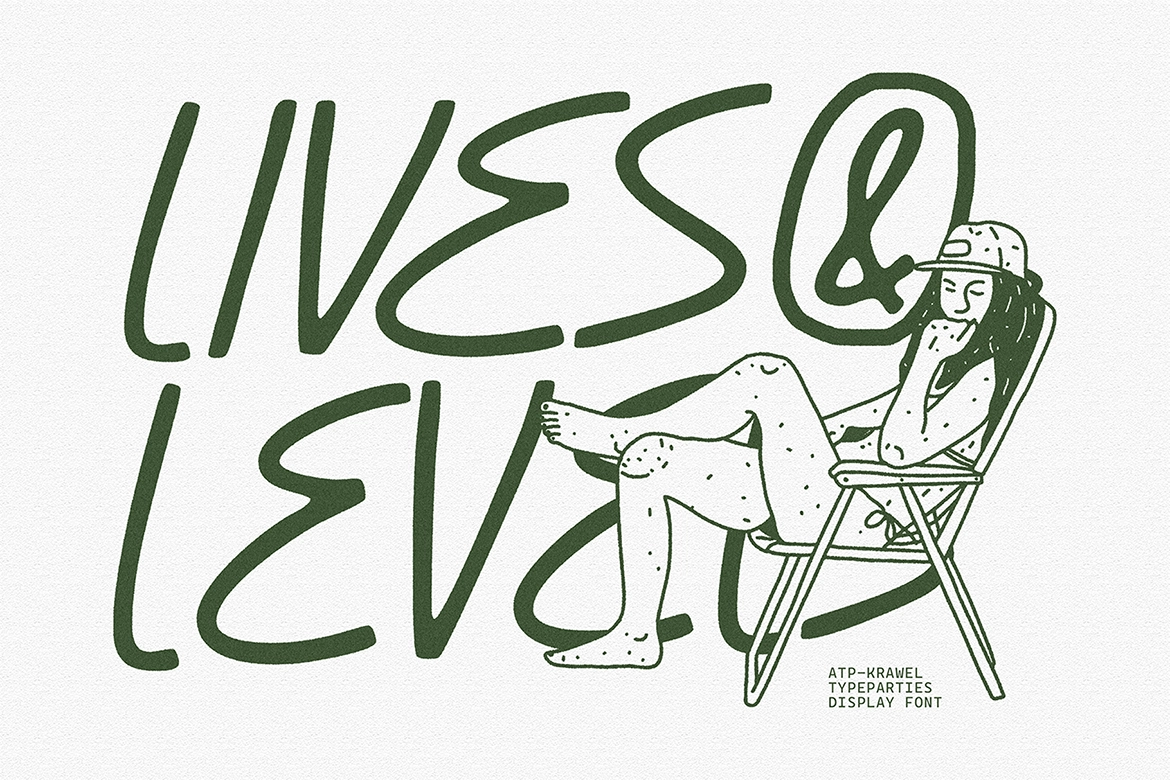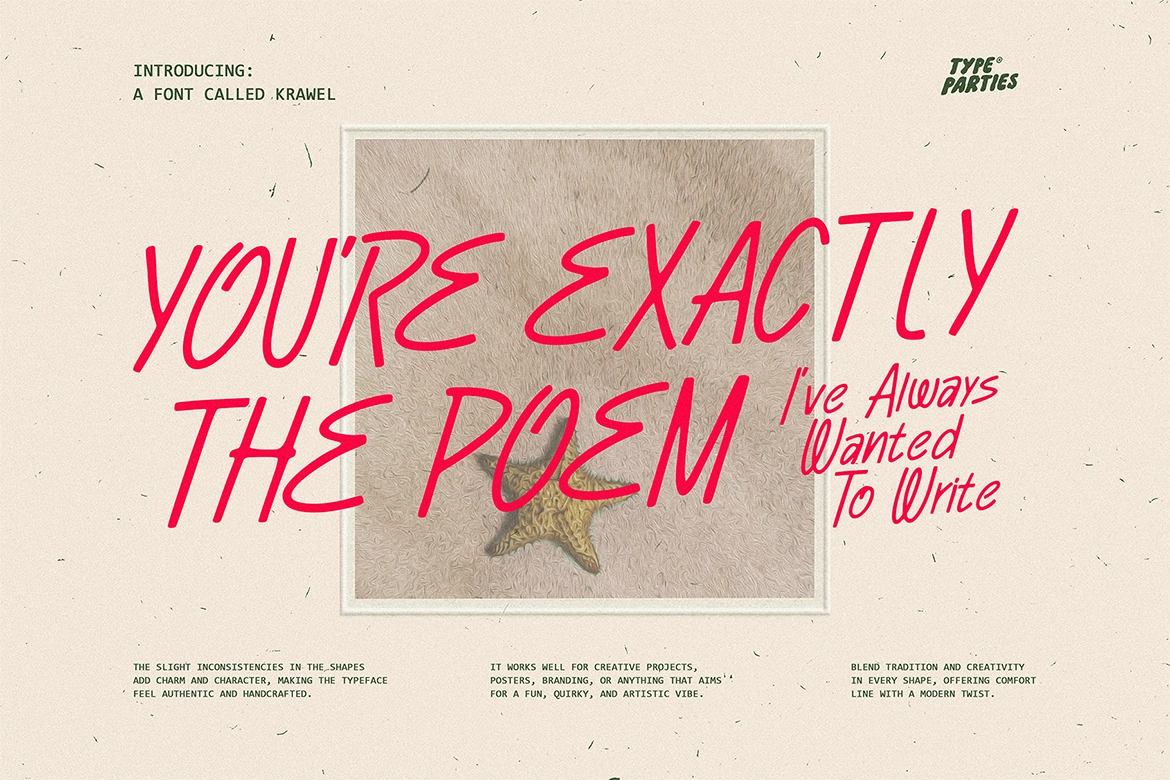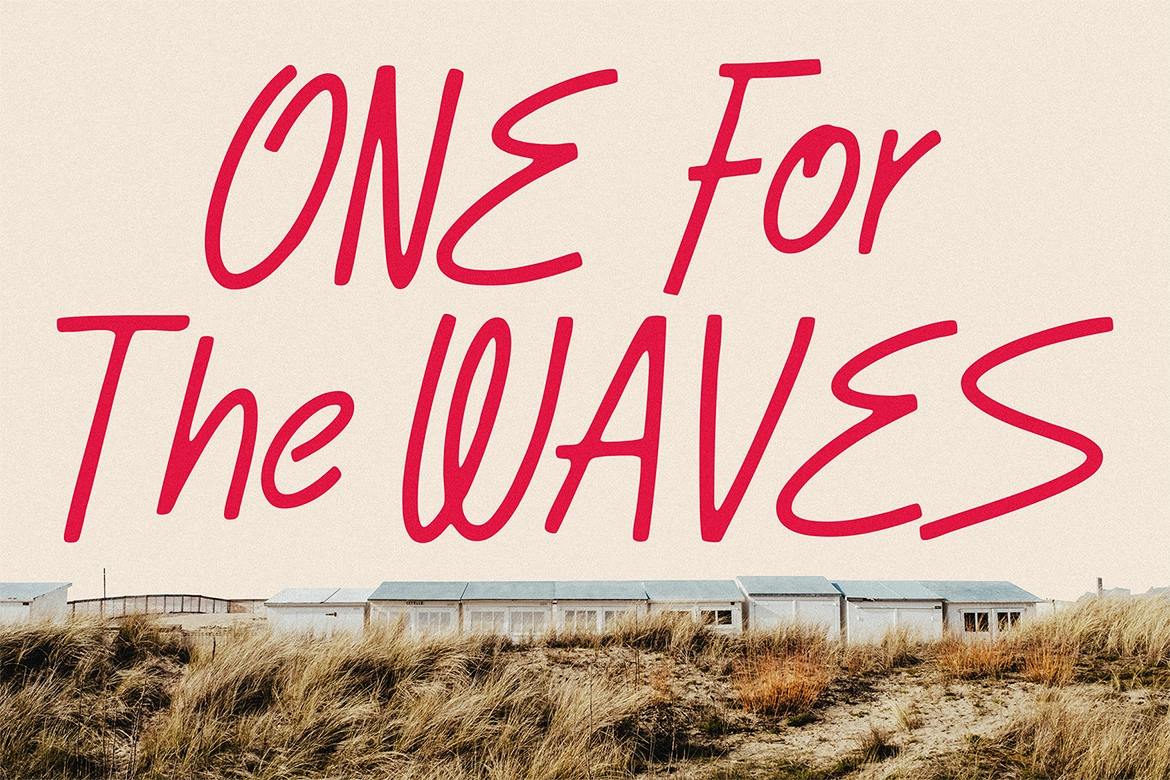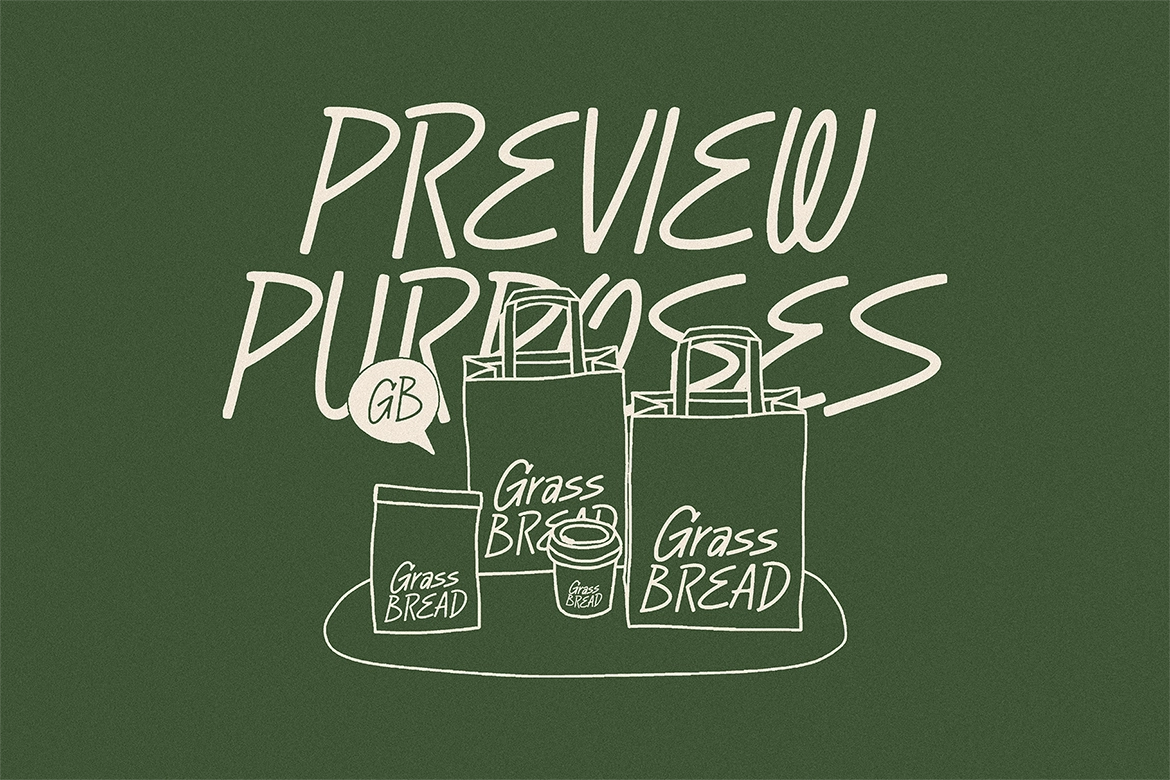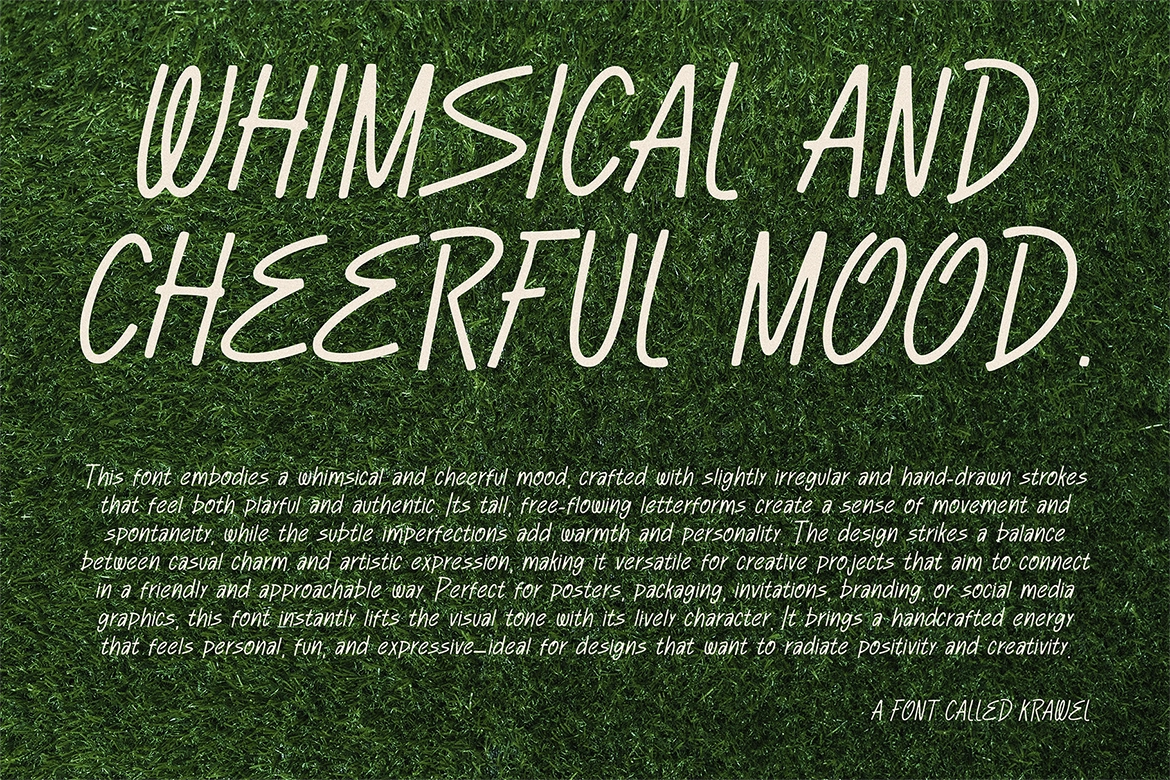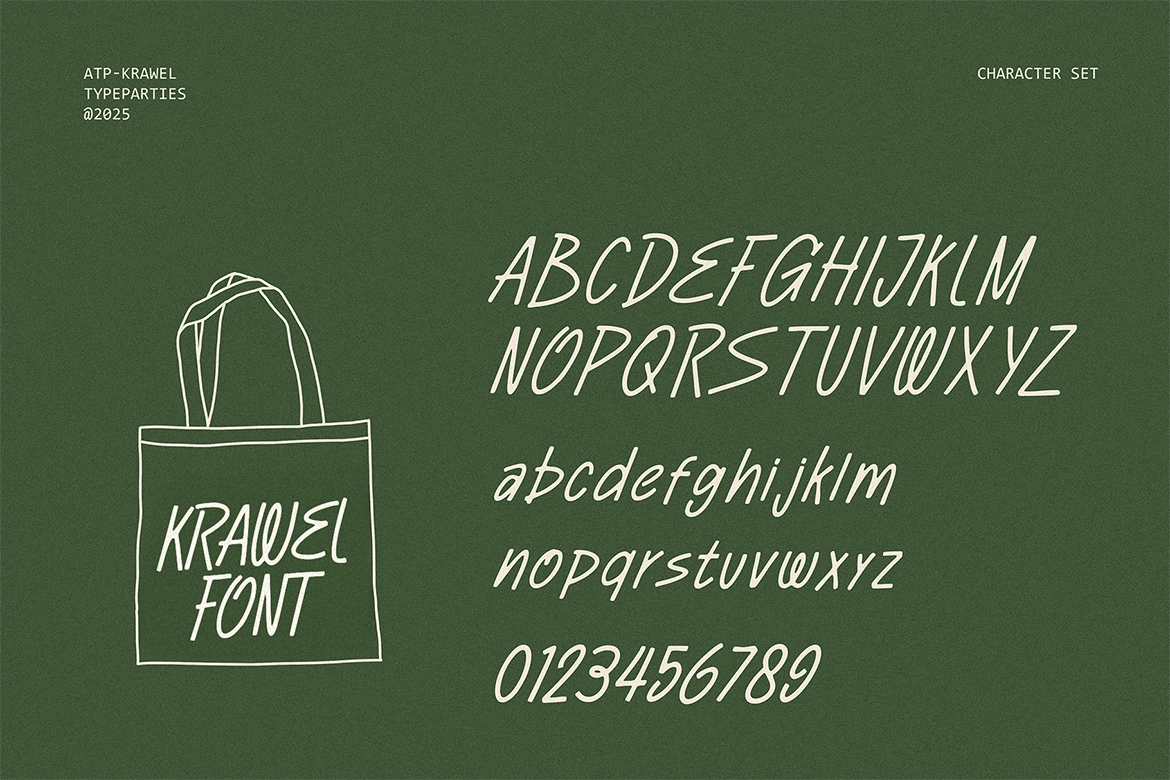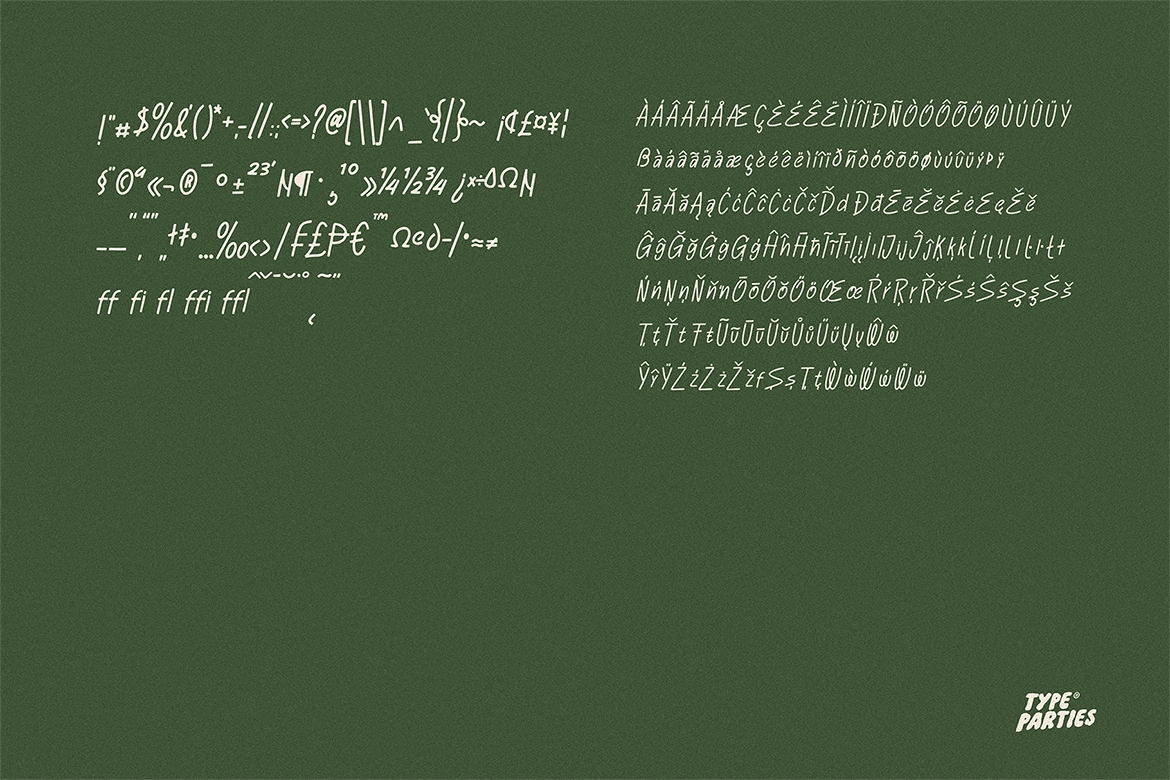
Krawel - Casual Handwritten Font
Krawel – Casual Handwritten Font is a playful and expressive typeface designed with a natural, hand-drawn feel. Featuring tall, narrow letterforms and slightly irregular strokes, Krawel captures the spontaneous rhythm of real brush handwriting.
The loose structure and organic flow give this font a friendly, approachable personality, while subtle imperfections add charm and authenticity. Each character feels handcrafted, making it perfect for designers who want a warm, human touch in their work. Ideal for branding, packaging, posters, social media graphics, quotes, apparel, and creative editorial layouts.
Krawel blends creativity and comfort in every stroke, delivering a modern handwritten style with natural energy and character.
- Uppercase Letters
- Lowercase Letters
- Punctuation
- Natural Brush Texture
- Organic Stroke Flow